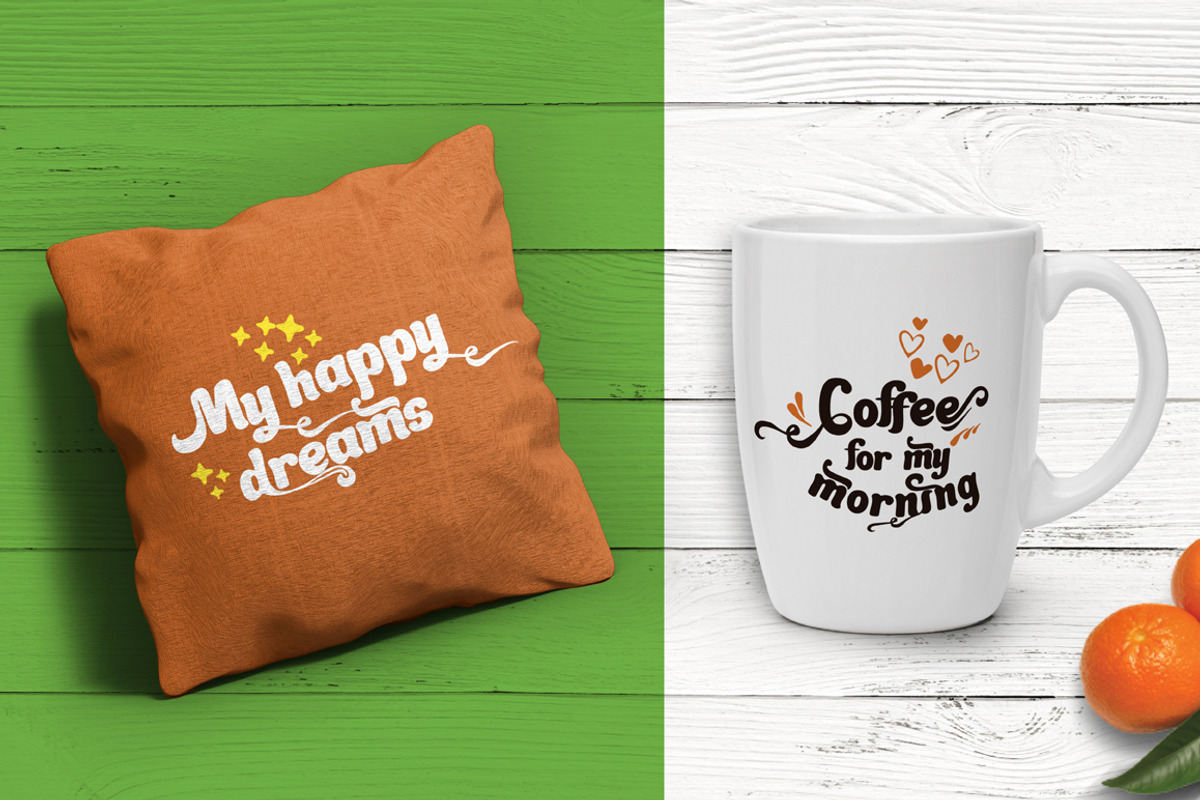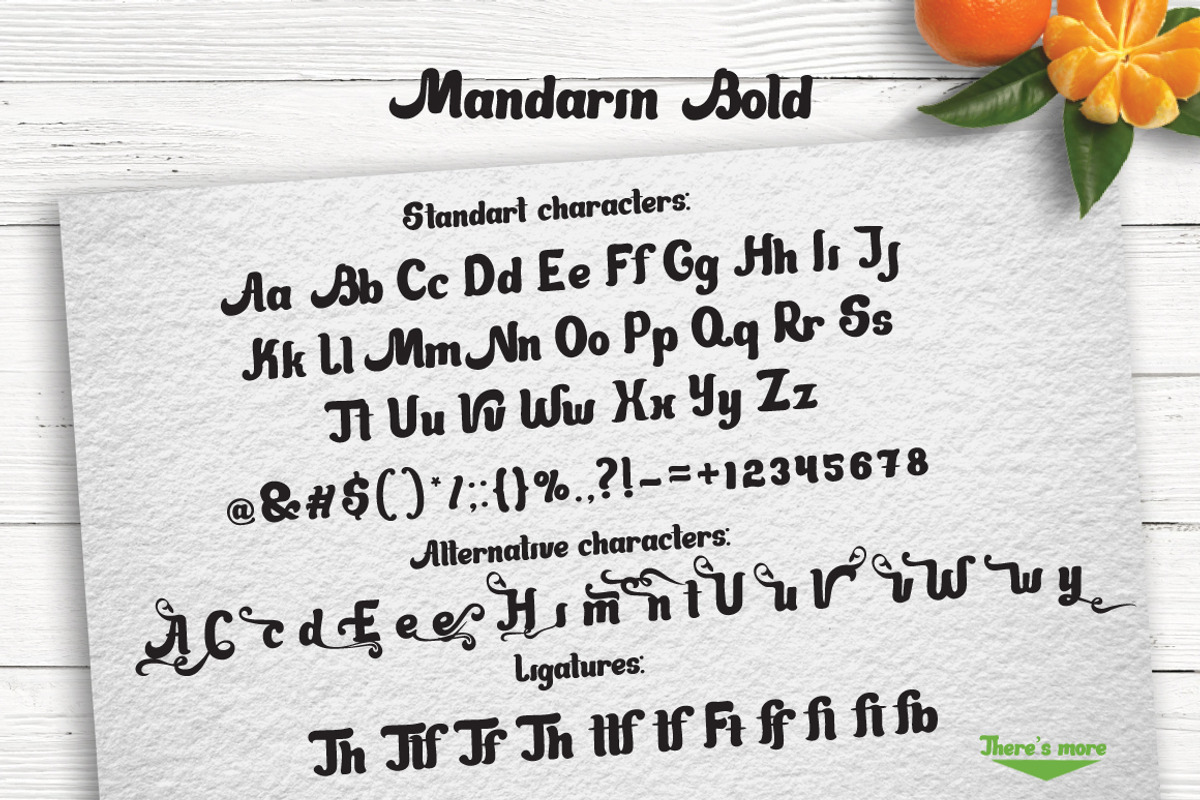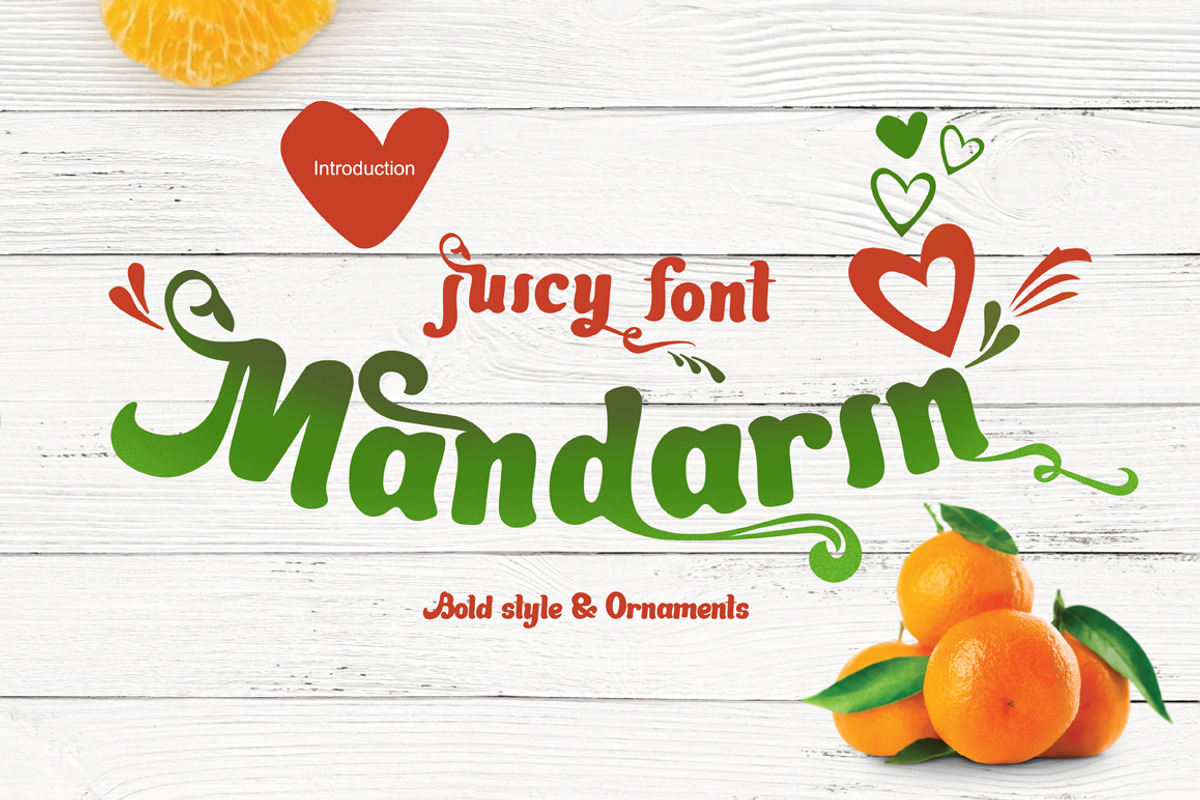
Juicy font Mandarin
Juicy font Mandarin by Oldy is a font selected for branding, posters, packaging, typography.
- The font includes: standart characters, alternate sharacters and basic ligatures.
Why Juicy font Mandarin is worth a look
Juicy font Mandarin by Oldy fits naturally into Branding, posters, packaging, typography.